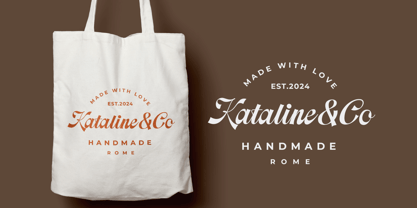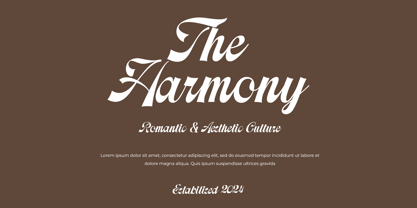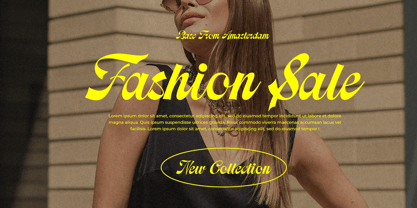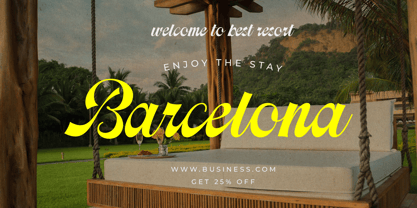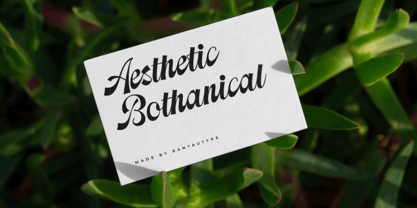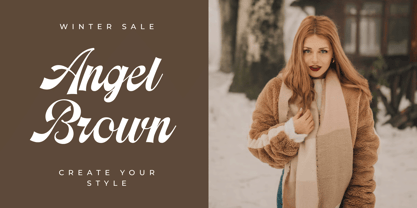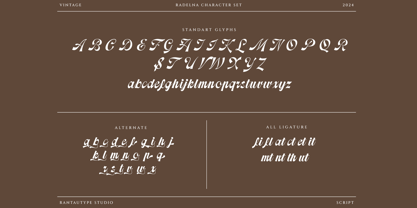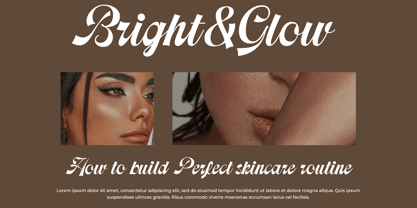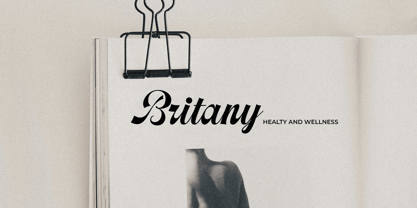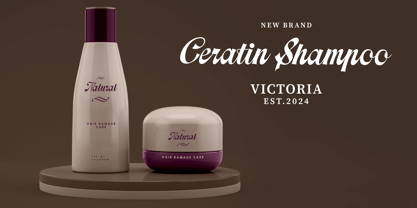
Radelna
La familia tipográfica Radelna fue diseñada por Yudi Pratama Chandra y publicada por RantauType. Radelna contiene 1 estilos. Más información sobre esta familia
Radelna is classic script font inspire by vintage visual design. Radelna is a beautiful choice for any creative endeavor, creating, modern, chic, lifestyle design such as logotype, title, cover, branding, invitations, wedding designs, display and magazine, social media posts, advertisements, printed quotes, product packaging, corporate brand, product designs, labels, photography, watermarks, special events and any other project with vintage touch.
• Standart Glyphs
• Numberial and Functional
• Ligature and alternate